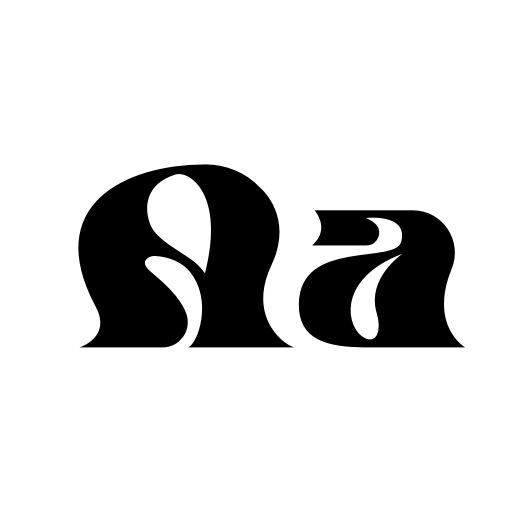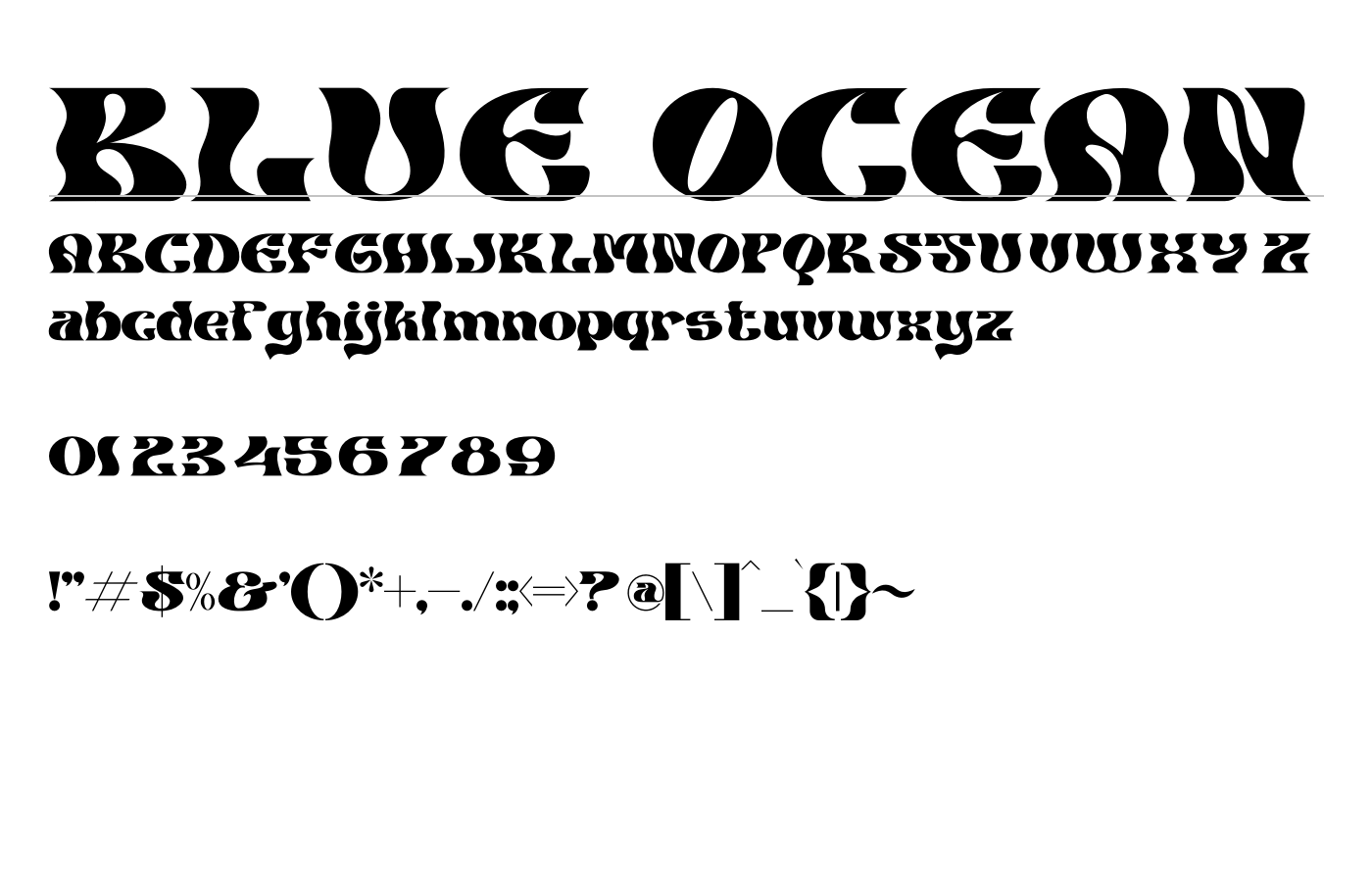
BLUE OCEAN is a bold, decorative serif font with a strong vintage vibe, featuring thick, blocky strokes and high contrast shapes that create a striking presence. Its unique, playful forms and heavy weight make it perfect for eye-catching headlines, branding, and packaging that seek a retro or artistic flair. This font works best when used in display settings where its distinct personality can shine without compromising readability.
BLUE OCEAN Font
About BLUE OCEAN Font